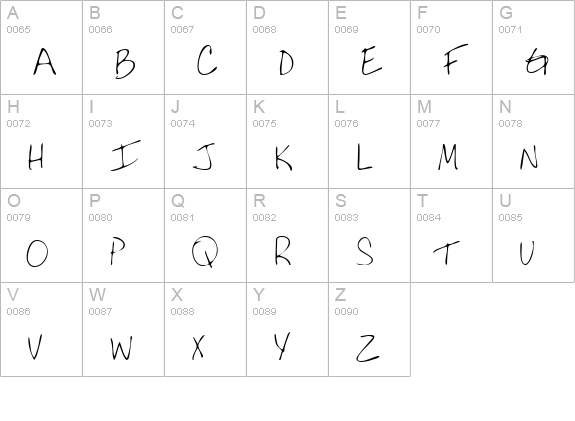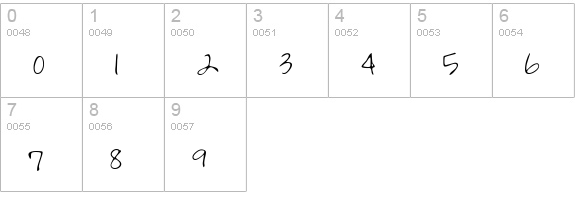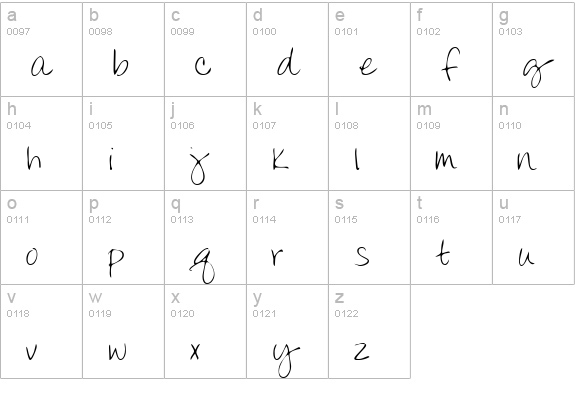
DonnysHand Font Details
DonnysHand font is a charming and elegant typeface that exudes a sense of warmth and creativity. With its flowing lines and delicate curves, this font is perfect for adding a personal touch to any project. Whether you're designing invitations, greeting cards, or branding materials, DonnysHand font will bring a touch of sophistication and style. The best part? DonnysHand font is completely free to download at FontsMarket.com. Simply visit the website and start using this beautiful font in your designs today. Let DonnysHand font elevate your projects with its unique and timeless appeal.